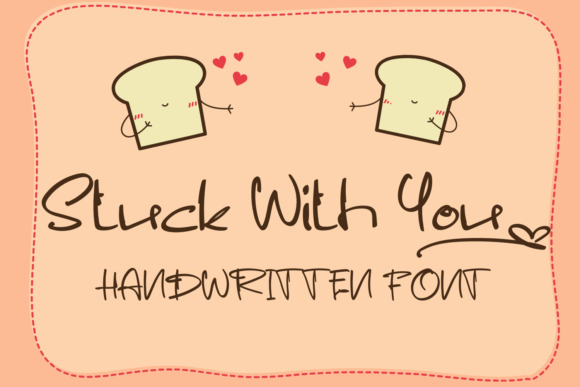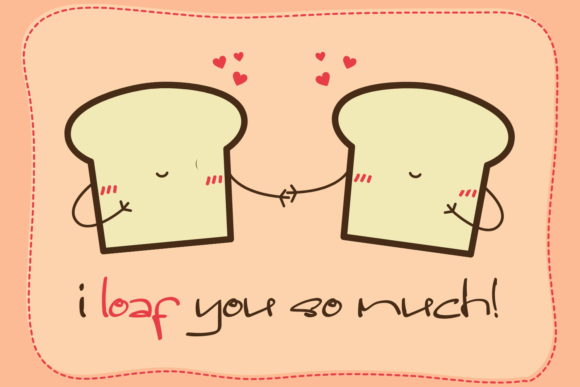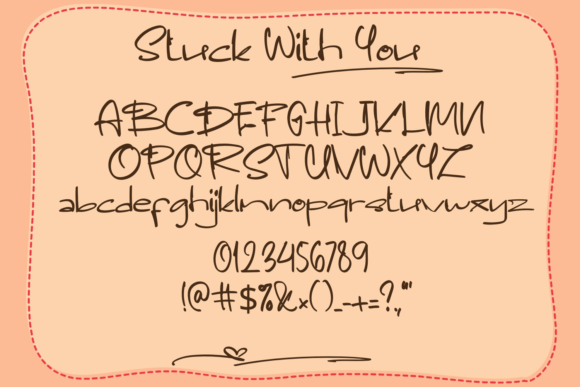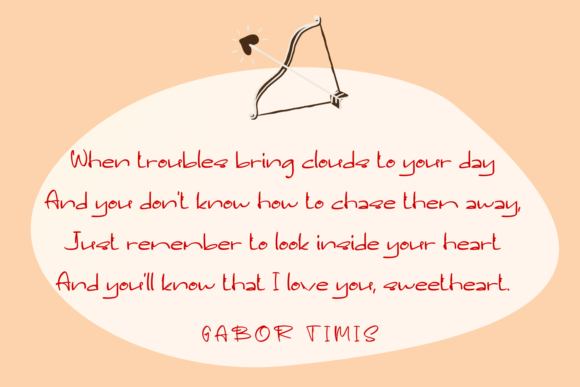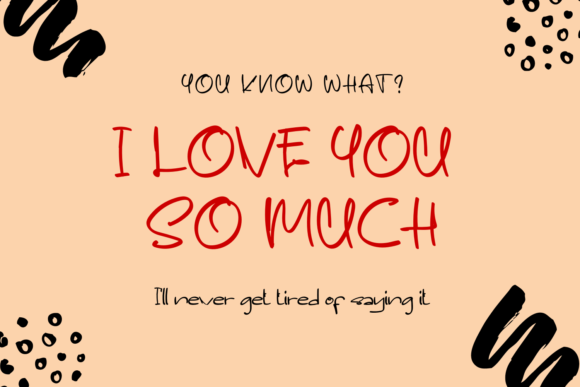
Stuck with You Font
About Stuck with You Font
Stuck With You is a sweet and friendly handwritten font. Its natural and unique style makes it incredibly fitting to a large pool of designs. The only limit is your imagination!